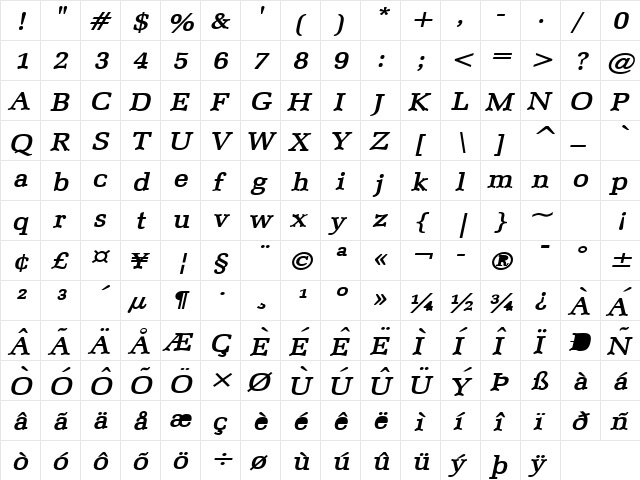
Bid Roman Wide BoldItalic Font Preview
Bid Roman Wide BoldItalic
Design Context for Bid Roman Wide Typeface
Bid Roman Wide offers clean, dependable letterforms without strong stylistic allegiance, making it a practical choice for designers who need flexibility. The slanted form adds forward momentum and visual energy. Its bold stroke weight gives it real presence on the page.
Pro Tip: Try Bid Roman Wide for annotation and caption copy alongside an upright companion — the contrast in angle creates a dynamic but ordered typographic system.